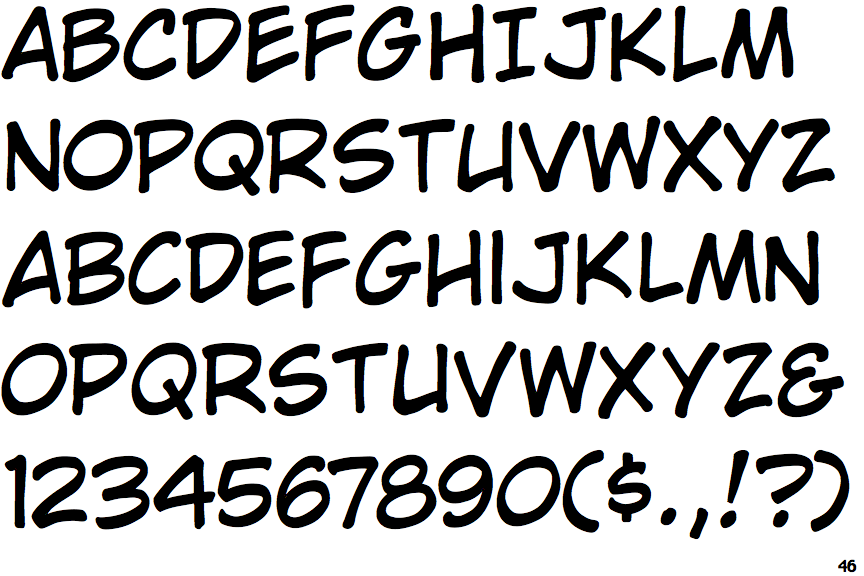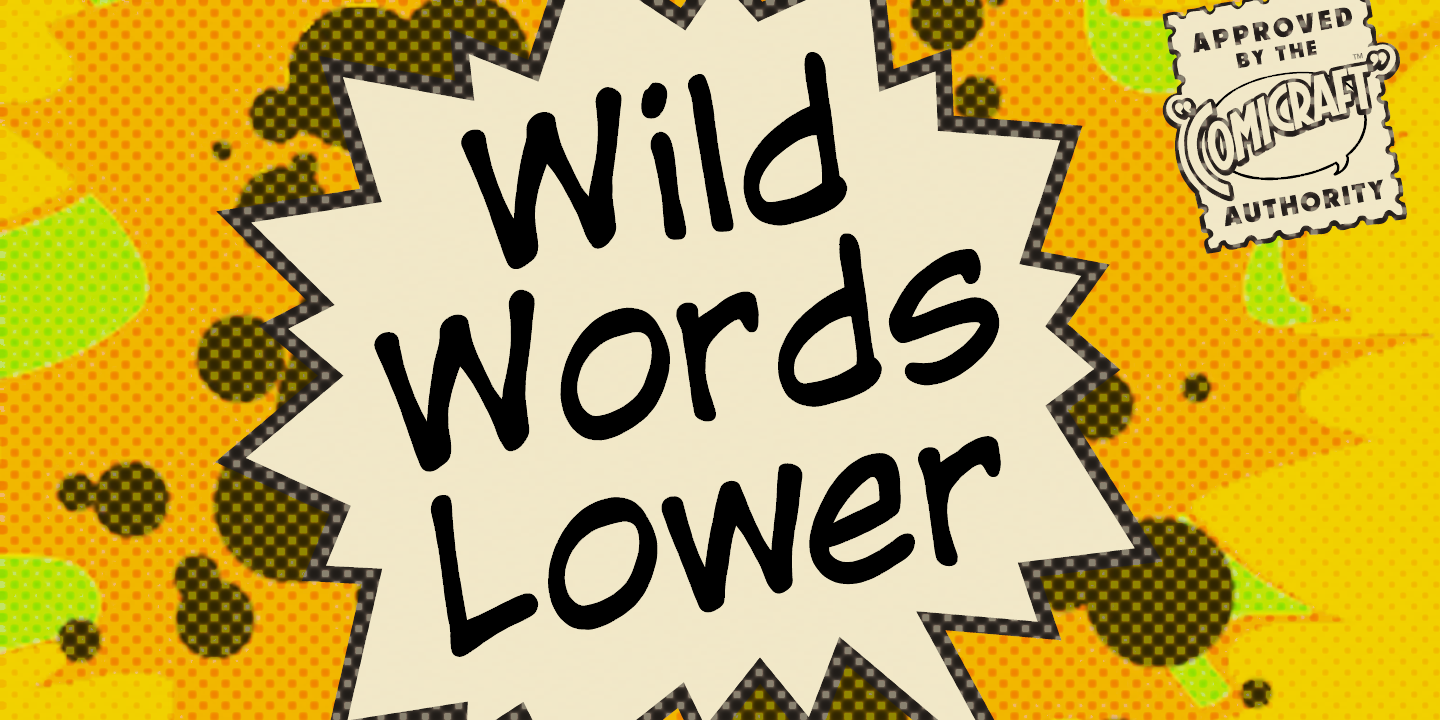
Wild Words Font
Wild Words Font - Wild words font is a great popular comic font that was carefully designed by john roshell and was released by comicraft. This is a very gorgeous font that is belonging to the brush. Web complete family of 4 fonts: Designed for lettering jim lee’s. Web designed by john roshell, wildwords is a comic font family. Cc wild words roman font is a display typeface. Web what is the font wild words? Wildwords font family was designed by john roshell and published by comicraft. Wildwords contains 4 styles and family. Web wild words font download about the wild words font and its characteristics.
Web complete family of 4 fonts: Wildwords font family was designed by john roshell and published by comicraft. Wild words font is a great popular comic font that was carefully designed by john roshell and was released by comicraft. Web what is the font wild words? Web designed by john roshell, wildwords is a comic font family. Designed for lettering jim lee’s. Cc wild words roman font is a display typeface. Wildwords contains 4 styles and family. This is a very gorgeous font that is belonging to the brush. This typeface has four styles and was published by comicraft.
Designed for lettering jim lee’s. Web what is the font wild words? Cc wild words roman font is a display typeface. Wildwords contains 4 styles and family. Web designed by john roshell, wildwords is a comic font family. This typeface has four styles and was published by comicraft. Wild words font is a great popular comic font that was carefully designed by john roshell and was released by comicraft. Web wild words font download about the wild words font and its characteristics. This is a very gorgeous font that is belonging to the brush. Web complete family of 4 fonts:
Wildwords font family was designed by john roshell and published by comicraft. Web complete family of 4 fonts: Wildwords contains 4 styles and family. Wild words font is a great popular comic font that was carefully designed by john roshell and was released by comicraft. This is a very gorgeous font that is belonging to the brush.
Wildwords font family was designed by john roshell and published by comicraft. Cc wild words roman font is a display typeface. Wildwords contains 4 styles and family. Web what is the font wild words? Web complete family of 4 fonts:
Web complete family of 4 fonts: Designed for lettering jim lee’s. This is a very gorgeous font that is belonging to the brush. Web designed by john roshell, wildwords is a comic font family. Web what is the font wild words?
This typeface has four styles and was published by comicraft. Web complete family of 4 fonts: Web wild words font download about the wild words font and its characteristics. Wildwords font family was designed by john roshell and published by comicraft. Designed for lettering jim lee’s.
This typeface has four styles and was published by comicraft. Web complete family of 4 fonts: Wild words font is a great popular comic font that was carefully designed by john roshell and was released by comicraft. Designed for lettering jim lee’s. Web what is the font wild words?
This typeface has four styles and was published by comicraft. Web what is the font wild words? Designed for lettering jim lee’s. Wild words font is a great popular comic font that was carefully designed by john roshell and was released by comicraft. Web wild words font download about the wild words font and its characteristics.
Identifont Wild Words
Web what is the font wild words? Web designed by john roshell, wildwords is a comic font family. This is a very gorgeous font that is belonging to the brush. Wild words font is a great popular comic font that was carefully designed by john roshell and was released by comicraft. Wildwords font family was designed by john roshell and.
Wild Words Font Free Download Fonts Empire
Wildwords contains 4 styles and family. Web what is the font wild words? Web wild words font download about the wild words font and its characteristics. Wild words font is a great popular comic font that was carefully designed by john roshell and was released by comicraft. Cc wild words roman font is a display typeface.
WildWords Lower font free download for WEB
Wild words font is a great popular comic font that was carefully designed by john roshell and was released by comicraft. Designed for lettering jim lee’s. Web what is the font wild words? Wildwords font family was designed by john roshell and published by comicraft. Wildwords contains 4 styles and family.
Web Wild Words Font Download About The Wild Words Font And Its Characteristics.
Wild words font is a great popular comic font that was carefully designed by john roshell and was released by comicraft. Cc wild words roman font is a display typeface. Web designed by john roshell, wildwords is a comic font family. Web what is the font wild words?
This Typeface Has Four Styles And Was Published By Comicraft.
Wildwords contains 4 styles and family. Web complete family of 4 fonts: Wildwords font family was designed by john roshell and published by comicraft. Designed for lettering jim lee’s.